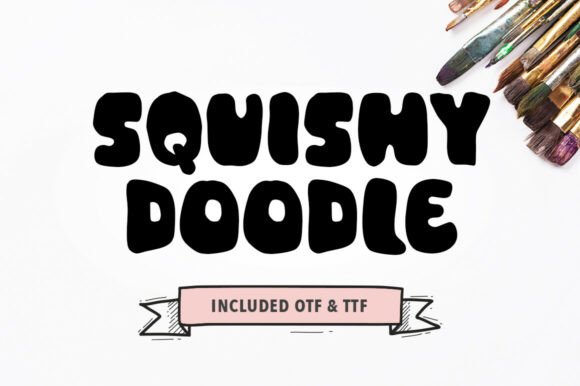
The Irresistible Charm of the Squishy Doodle Typeface
There is a specific kind of design problem that requires more than just legibility; it requires feeling. You know the scenario: a project that demands warmth, innocence, and an immediate sense of joy. This is where standard sans serif fonts often fall flat, leaving the design feeling sterile. Enter Squishy Doodle, a typeface that doesn’t just sit on the page—it bounces. As a premium font that embodies the spirit of "kawaii" culture, Squishy Doodle offers ultra-thick, bubbly letterforms that appear as if they have been inflated or squeezed into existence. It is a masterclass in playful typography, turning standard text into visual candy.
The core appeal of this typeface lies in its exaggerated weight and tight kerning. Unlike traditional serif font families that rely on sharp edges and contrast, or clean sans serif fonts that prioritize neutrality, Squishy Doodle embraces imperfection. The letters have a cohesive, "cloud-like" density that feels comforting to the eye. For designers and creative professionals, this font serves as an instant personality injection. If you are working on a logo design for a brand targeting families or younger demographics, this typeface signals accessibility and friendliness before the viewer even reads the word. It bridges the gap between professional typography and the hand-drawn aesthetic of doodle art, making it a versatile asset in any creative toolkit.
Practical Applications: From Brand Identity to Packaging
Understanding where to deploy a creative font like this is just as important as the design itself. Because of its distinct visual weight, Squishy Doodle excels in scenarios where short bursts of high-impact text are required. In the realm of packaging design, particularly for toys, confectionery, or children’s educational tools, this font is a powerhouse. It immediately communicates the product's nature without needing additional illustration. The letters themselves act as design assets, filling space with a vibrant energy that a standard script font cannot achieve.
Consider the digital landscape as well. In web design and social media graphics, grabbing attention within a split second is paramount. Using Squishy Doodle for headlines, call-to-action buttons, or Instagram stories can stop the scroll. The font’s rounded geometry makes it highly readable at larger sizes, even on mobile screens with lower resolution. However, it is a display font by nature. Attempting to use it for long-form body copy would be a typographic error; the tight spacing and heavy weight are designed for impact, not for sustaining the flow of reading paragraphs.
Strategic Pairings and Visual Hierarchy
One of the most effective ways to utilize the Squishy Doodle typeface is through strategic font pairing. Because the font is so expressive and stylistic, it requires a grounding partner. A clean, geometric sans serif font works exceptionally well for body text, allowing the headers set in Squishy Doodle to pop without overwhelming the layout. This contrast creates a clear visual hierarchy: the fun, bubbly typeface draws the eye to the key message, while the neutral font delivers the supporting information.
Color palette selection is another critical factor. The soft, inviting nature of the Squishy Doodle font pairs beautifully with vibrant pastels. Think soft pinks, mint greens, and baby blues—colors that reinforce the "kawaii" aesthetic. However, don't be afraid to test it against high-contrast backgrounds. A white Squishy Doodle font on a deep navy background can look surprisingly sophisticated for editorial design projects like magazine sidebars or creative blog headers. The goal is to ensure that the "squishy" texture of the letters remains visible and doesn't get lost in a busy background pattern.
Furthermore, since this is a premium font, understanding the licensing model is crucial for entrepreneurs and small business owners. Most commercial fonts are licensed based on the number of users or the specific use case (e.g., desktop install vs. webfont embedding via CSS). Ensure that your license covers all intended platforms, whether it is for a mobile app interface, printed stationery, or video content. Using a high-quality font like Squishy Doodle legally protects your brand identity and supports the typographers who create these unique design assets.
Ultimately, Squishy Doodle is more than just a collection of thick letters; it is a mood. It transforms the mundane into the memorable. Whether you are crafting a logo for a new startup, designing a cover for a children’s book, or creating a set of fun icons for a classroom project, this typeface ensures your work is bursting with personality. It proves that typography can be tactile, emotional, and undeniably fun. By choosing this font, you are not just selecting a style; you are inviting your audience to smile.